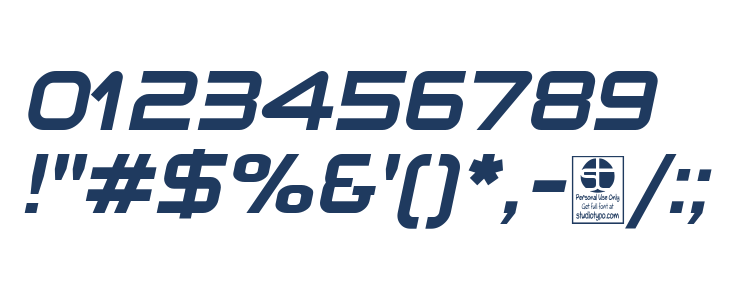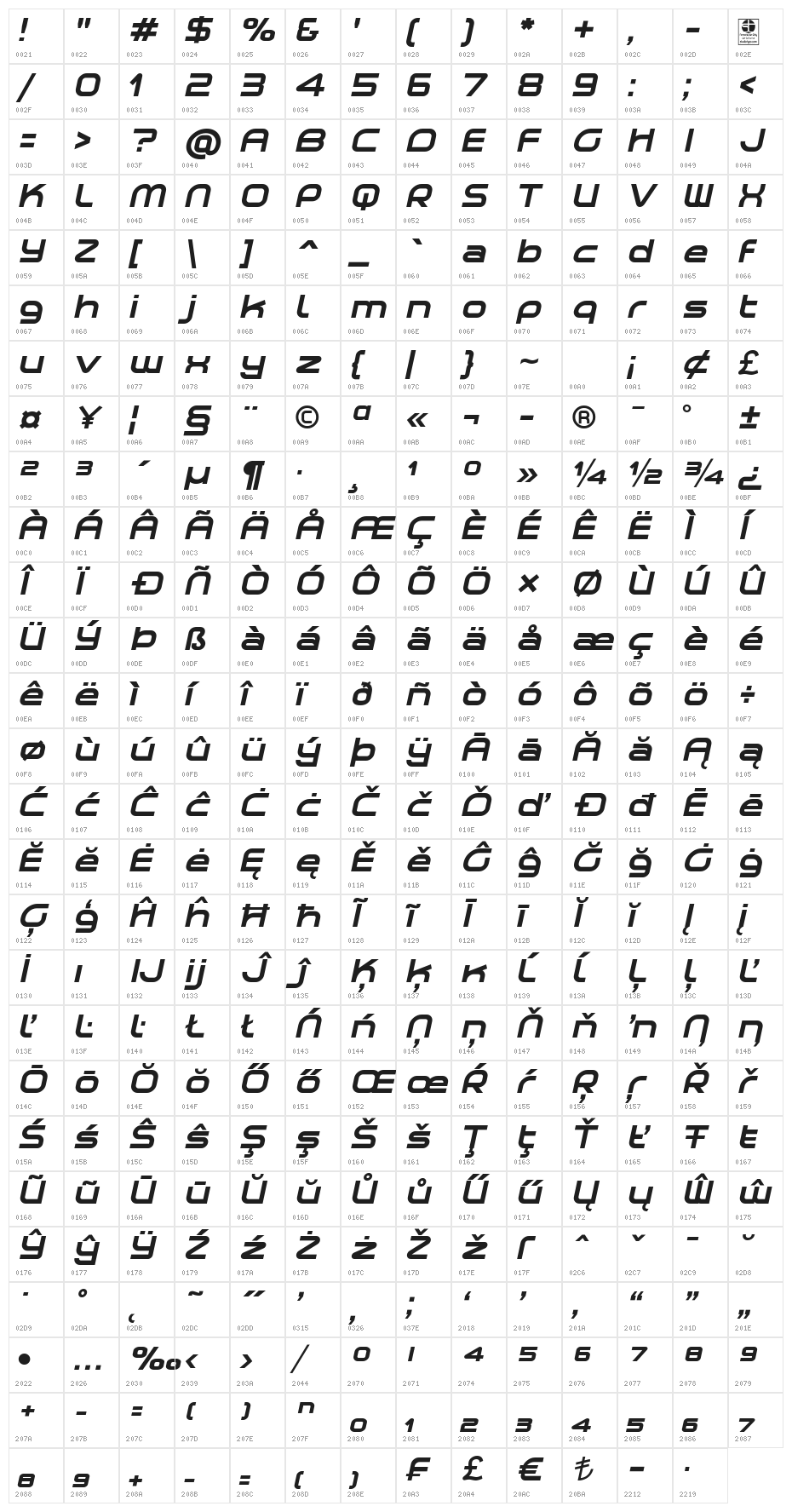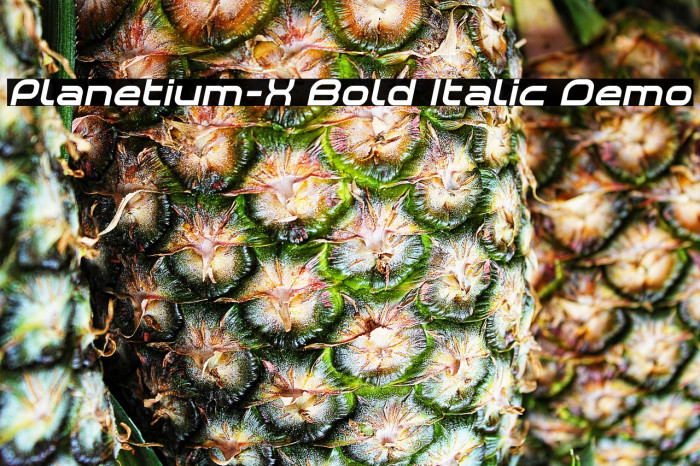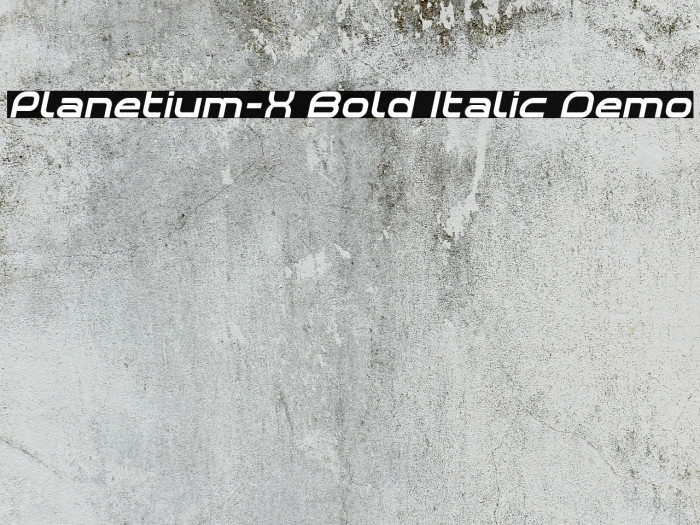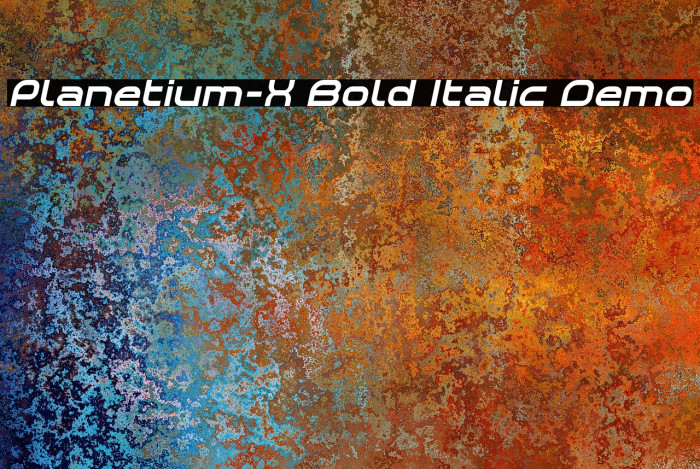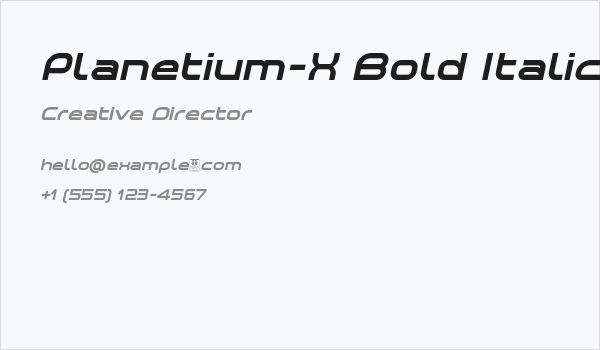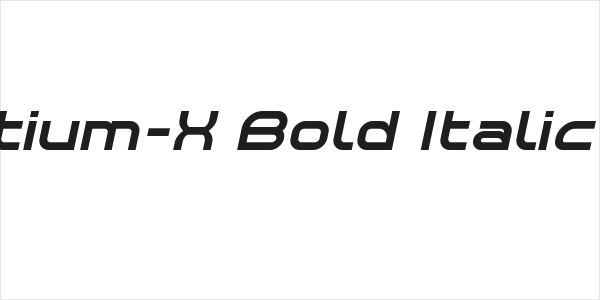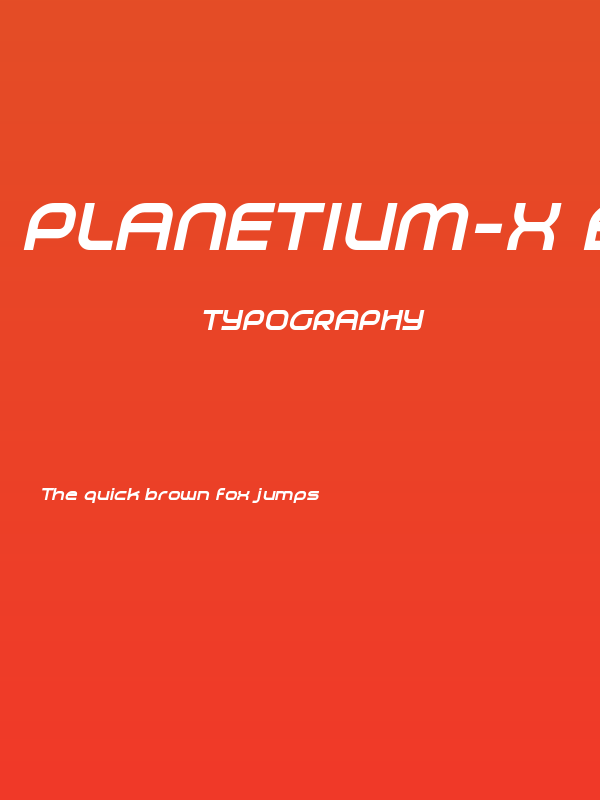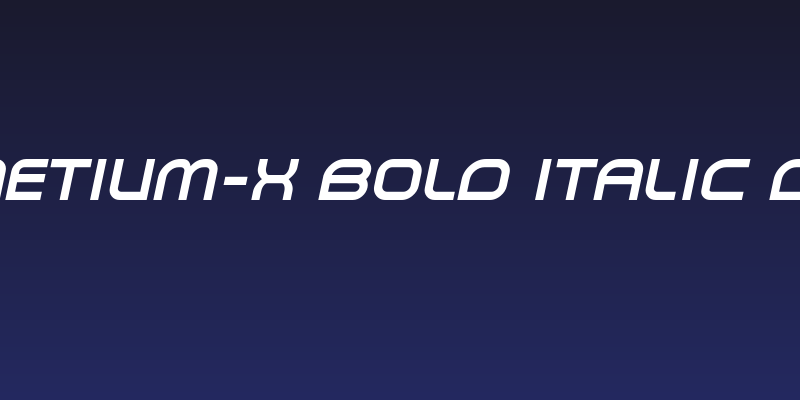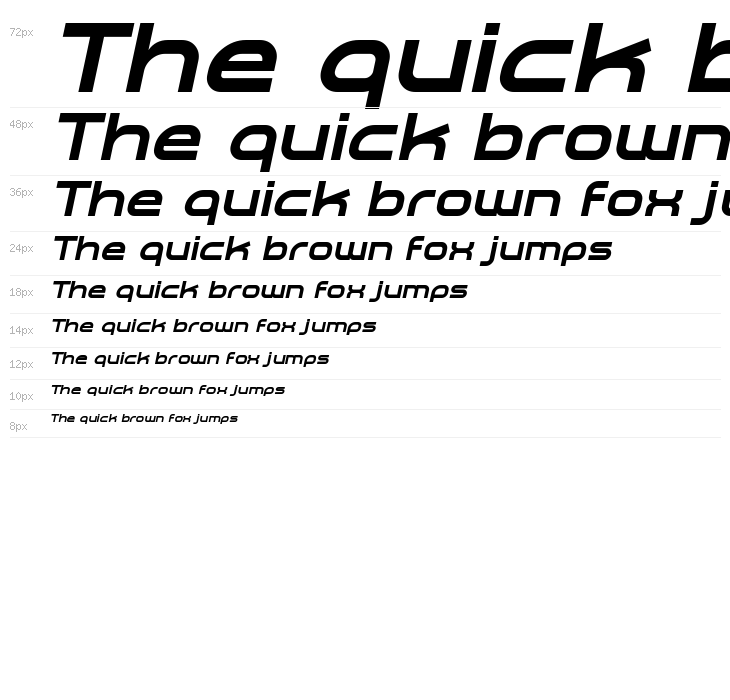
Planetium-X Bold Italic Demo Font
Planetium-X Bold Italic Demo Description
This font features a futuristic and dynamic design with a bold and italicized style. The characters are slightly slanted, giving a sense of motion and speed. The strokes are thick and consistent, providing a strong visual impact. The uppercase and lowercase letters maintain a uniform width, contributing to a cohesive appearance. The numerals are clear and distinct, matching the overall aesthetic. Special characters are well-integrated, enhancing the font's versatility. This typeface is ideal for projects that require a modern and energetic look.